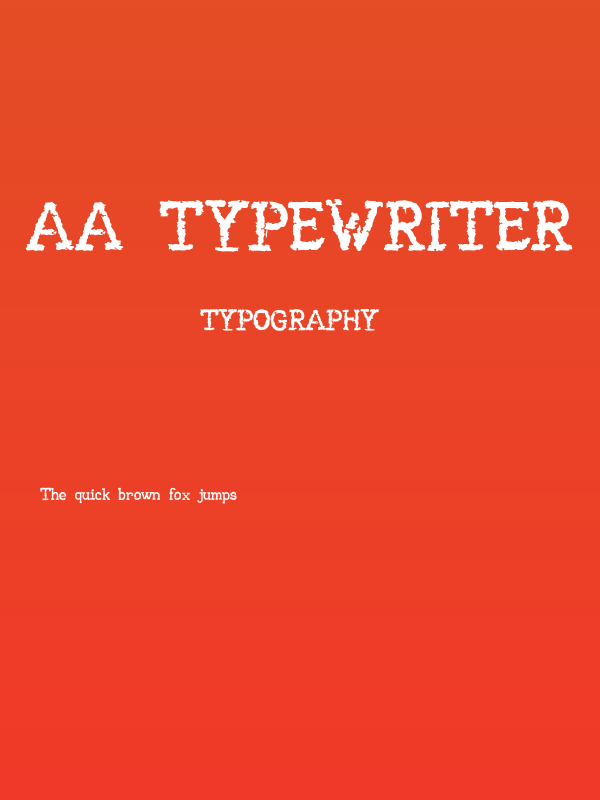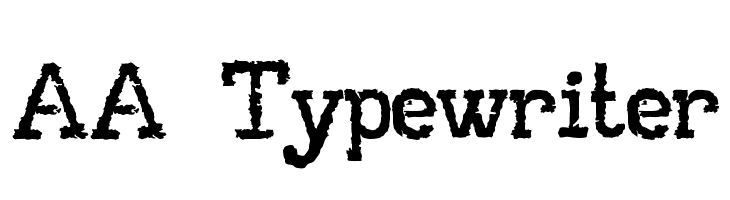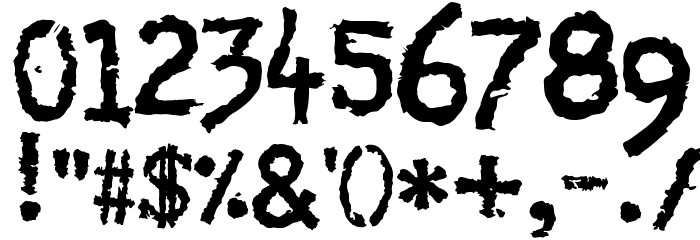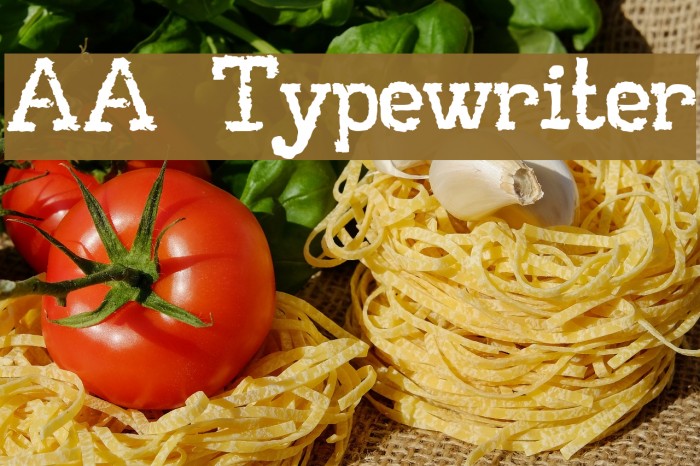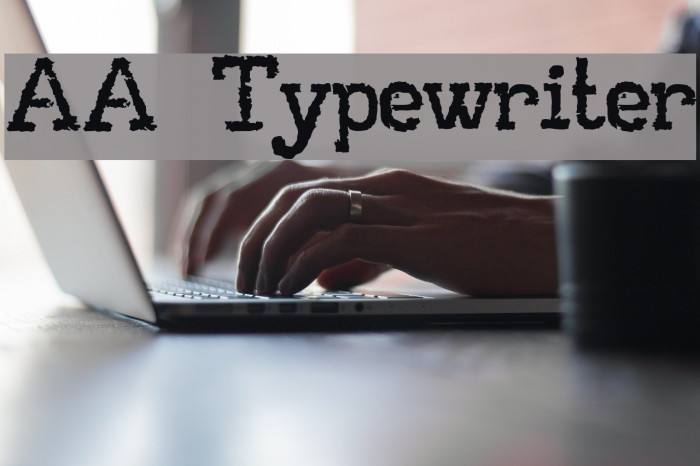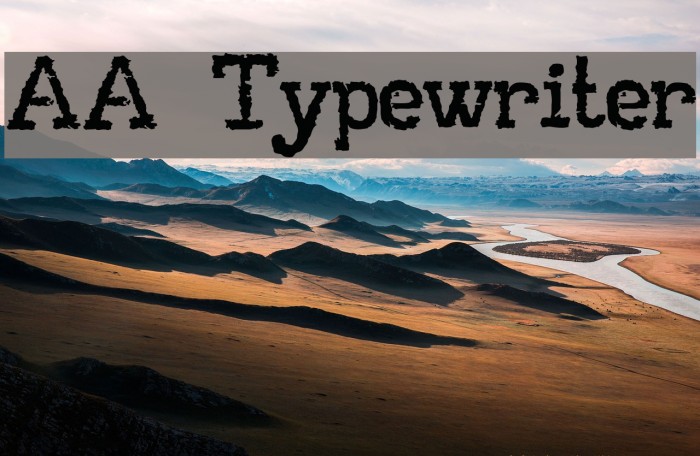
AA Typewriter Font
AA Typewriter Description
This font exhibits a rugged, distressed appearance reminiscent of old typewriter text. The characters have a rough, textured edge, giving them a vintage, worn look. The uppercase and lowercase letters maintain a consistent style, with slightly irregular shapes that add to the authentic typewriter feel. Numbers and special characters follow the same design, ensuring uniformity across all glyphs. The font's unique style makes it ideal for projects that require a retro or grunge aesthetic, adding character and depth to any design.
| Overall Style | Vintage |
| Proposed Projects | Ideal for vintage-themed designs, posters, book covers, and any project seeking a retro or grunge aesthetic. |